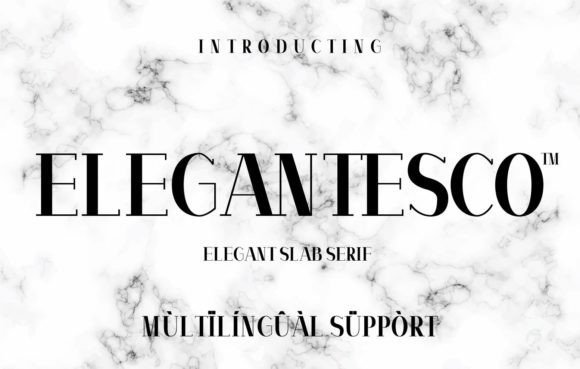
The Elegance of Design: Unveiling the Elegantesco Font
Have you ever stared at a beautifully designed logo or typography and felt a spark of inspiration? That’s exactly what happened to me when I first laid eyes on the Elegantesco Font. Its sleek, modern lines and elegant curves transported me to a world of luxury and sophistication. As a designer, I know that the right font can make all the difference in a project.
The Elegantesco Font is a carefully crafted typeface designed to embody the essence of minimalism and elegance. With its clean slab serif style, it’s perfect for creating a sense of refinement and sophistication in titles, luxury goods, packaging, and more. Whether you’re designing a perfume bottle or a high-end cosmetics brand, the Elegantesco Font is sure to elevate your project to the next level.
Elegantesco Font Key Features
- Unique Characteristics: Elegantesco Font features elegant, refined letterforms with subtle flair and decorative elements, making it perfect for use in luxury, high-end, and elegant design applications.
Elegantesco Font Review
I’ve had the chance to work with the Elegantesco Font, and I must say it’s a mixed bag. There are some things that really stand out, and others that leave me feeling a bit underwhelmed.
- Unique aesthetic: The Elegantesco Font has a distinct, elegant feel that sets it apart from more common fonts. It’s perfect for creating a sense of sophistication and refinement.
- Legibility: Despite its ornate design, the font is surprisingly easy to read, even at smaller sizes.
- Great for titles and headings: The Elegantesco Font is a natural fit for titles and headings, where its elegance can really shine.
- Limited versatility: While the font is great for certain applications, it may not be the best choice for body text or longer blocks of text.
- May be too ornate: Some users may find the font’s intricate design overwhelming or difficult to read.
Overall, the Elegantesco Font is a solid choice for designers who want to add a touch of elegance to their work. While it may not be suitable for every project, it’s a great option for those looking to create a sense of refinement and sophistication.
Tips for Getting the Most Out of Elegantesco Font
Use Elegantesco Font for elegant and sophisticated designs, such as wedding invitations, luxury product packaging, and high-end branding materials.
Combine Elegantesco Font with other elegant fonts and design elements to create a cohesive and luxurious look.
Elegantesco Font is perfect for:
Luxury product packaging and branding materials
High-end business cards and letterheads
Magazine and newspaper headlines